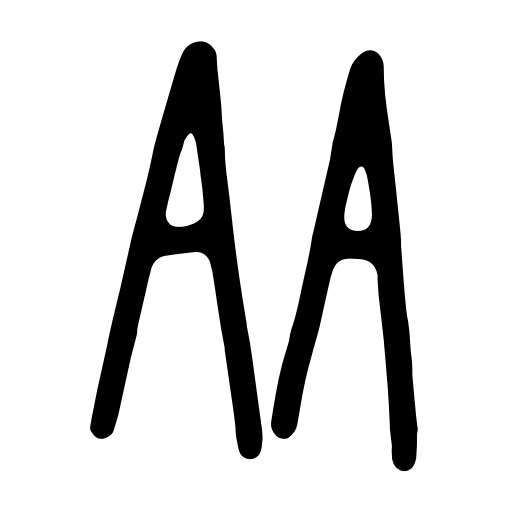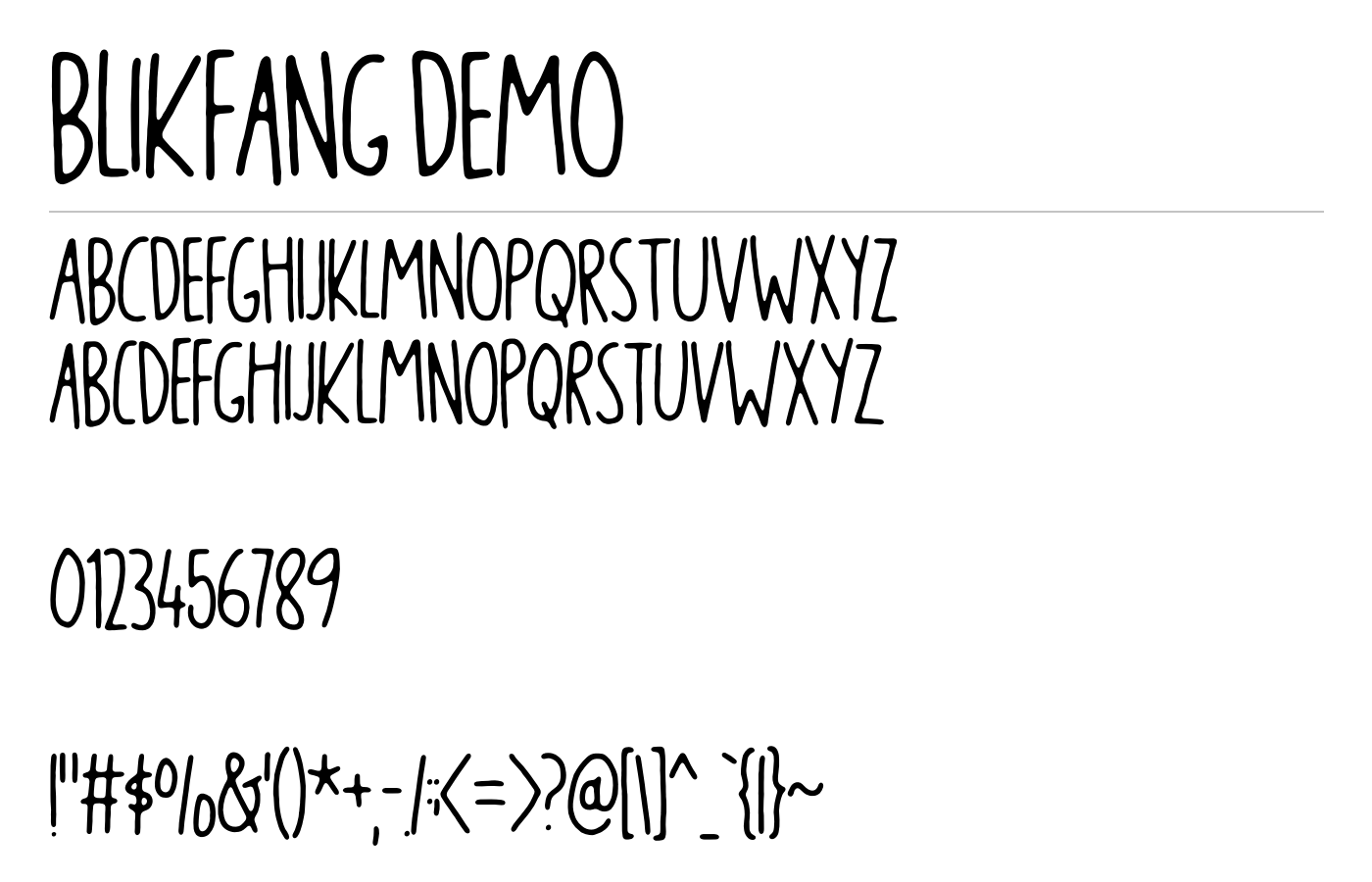
Blikfang DEMO is a narrow, hand-drawn sans serif font with a playful and informal character. Its tall, slightly irregular letterforms and consistent stroke weight give it a quirky, approachable feel, making it great for casual branding, creative projects, or fun headlines. This font works well where a friendly, personal touch is desired, such as posters, packaging, or website titles.
Blikfang DEMO Font
About Blikfang DEMO Font
| Font family | Blikfang DEMO Font |
| Designer | Bogstav.com |